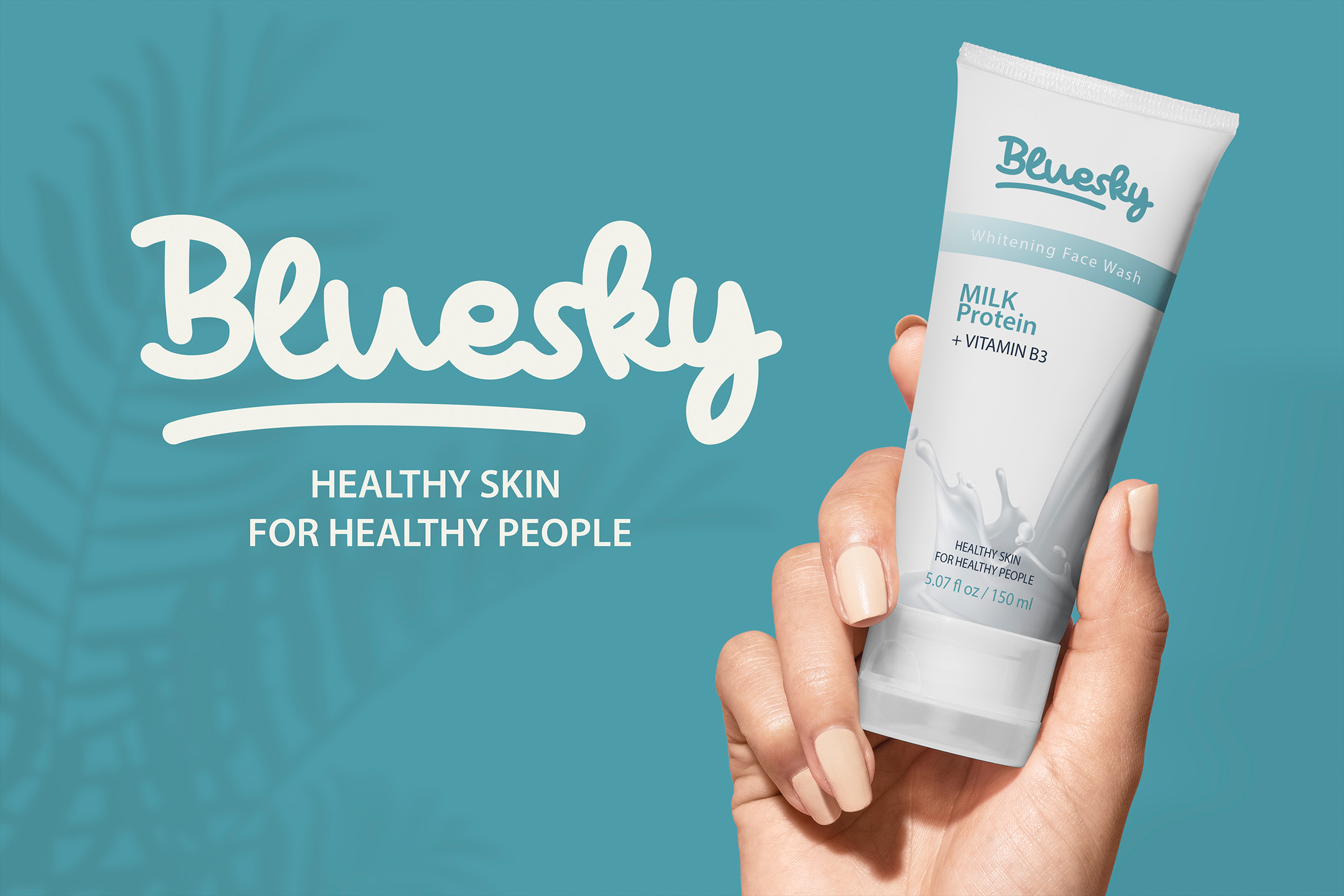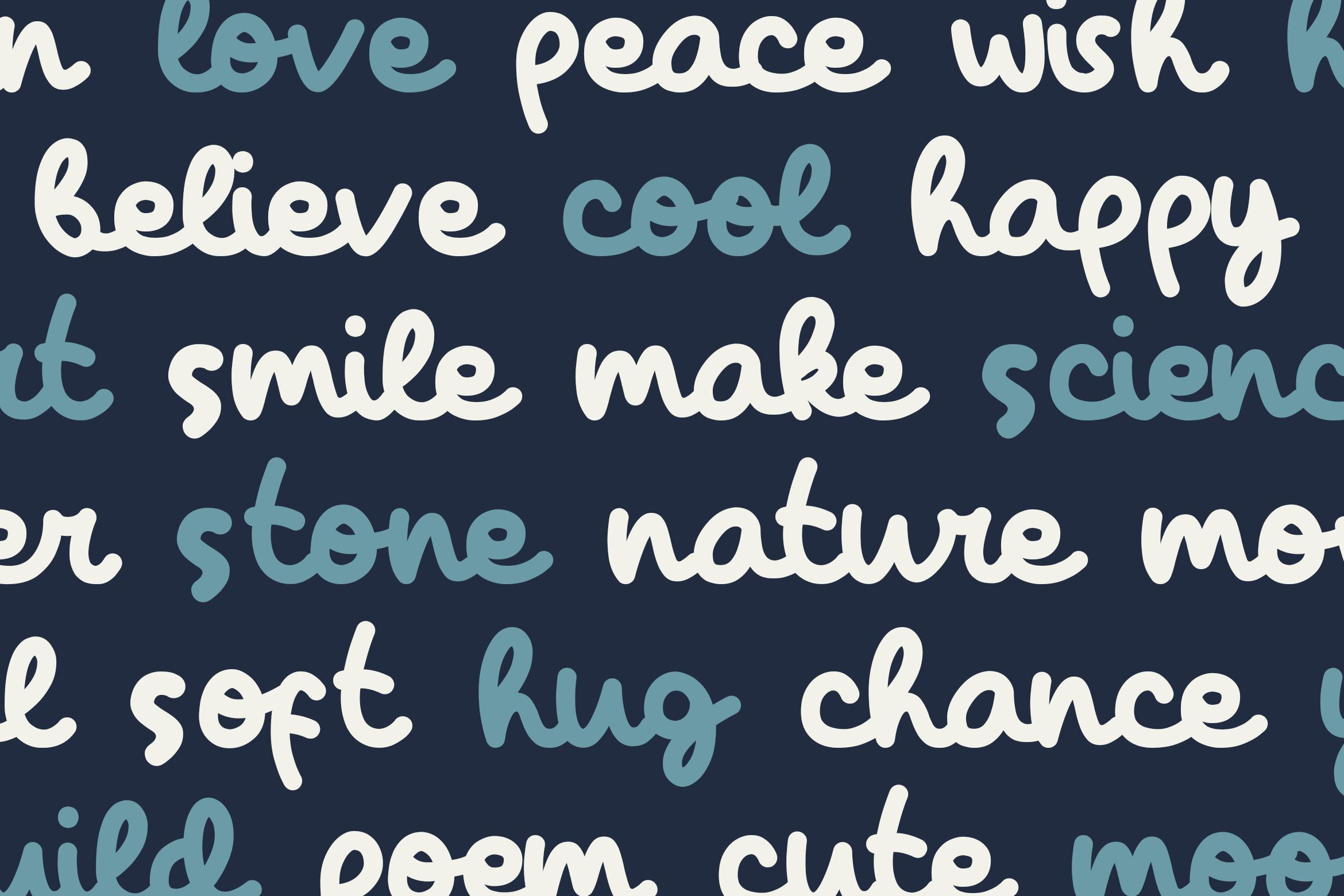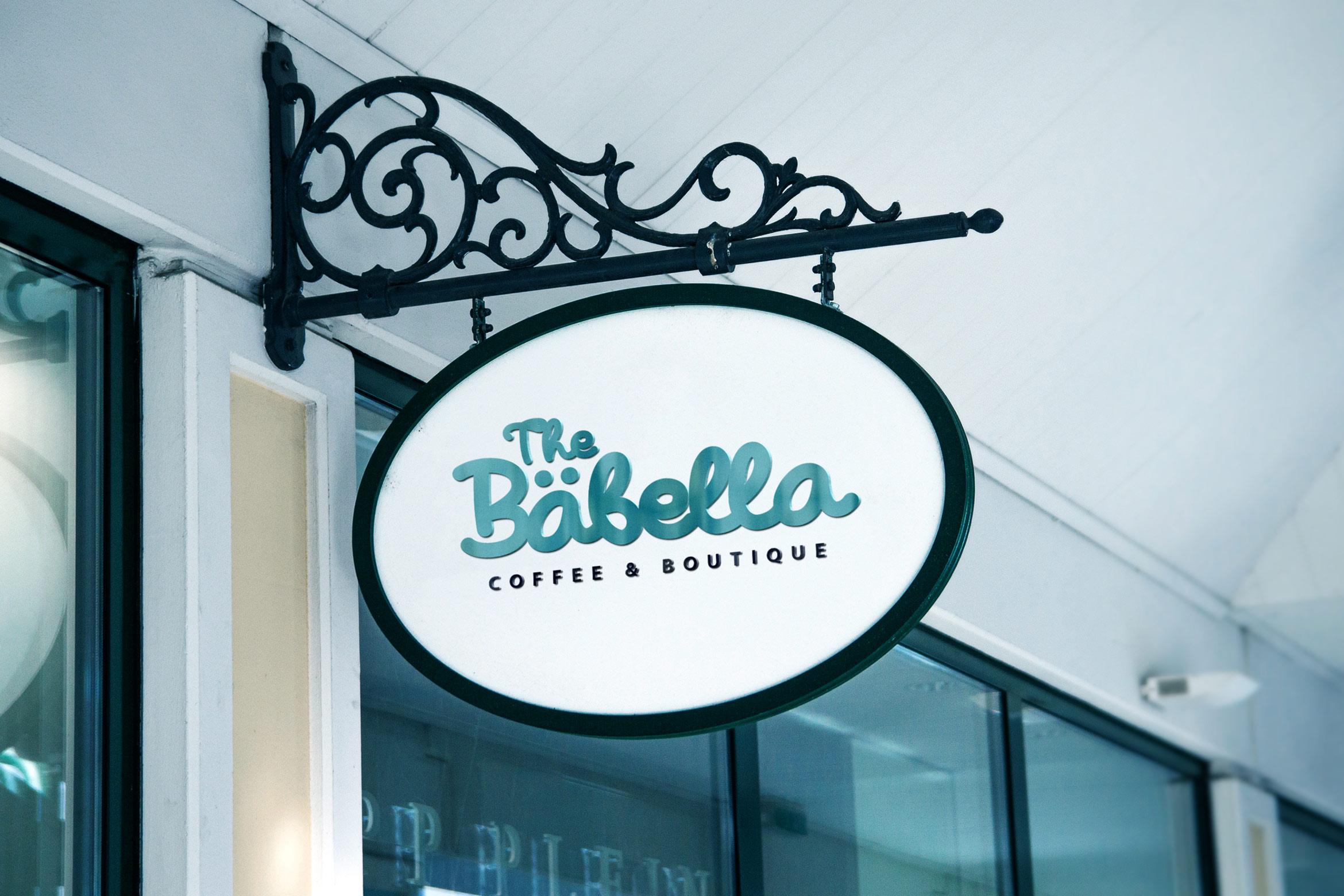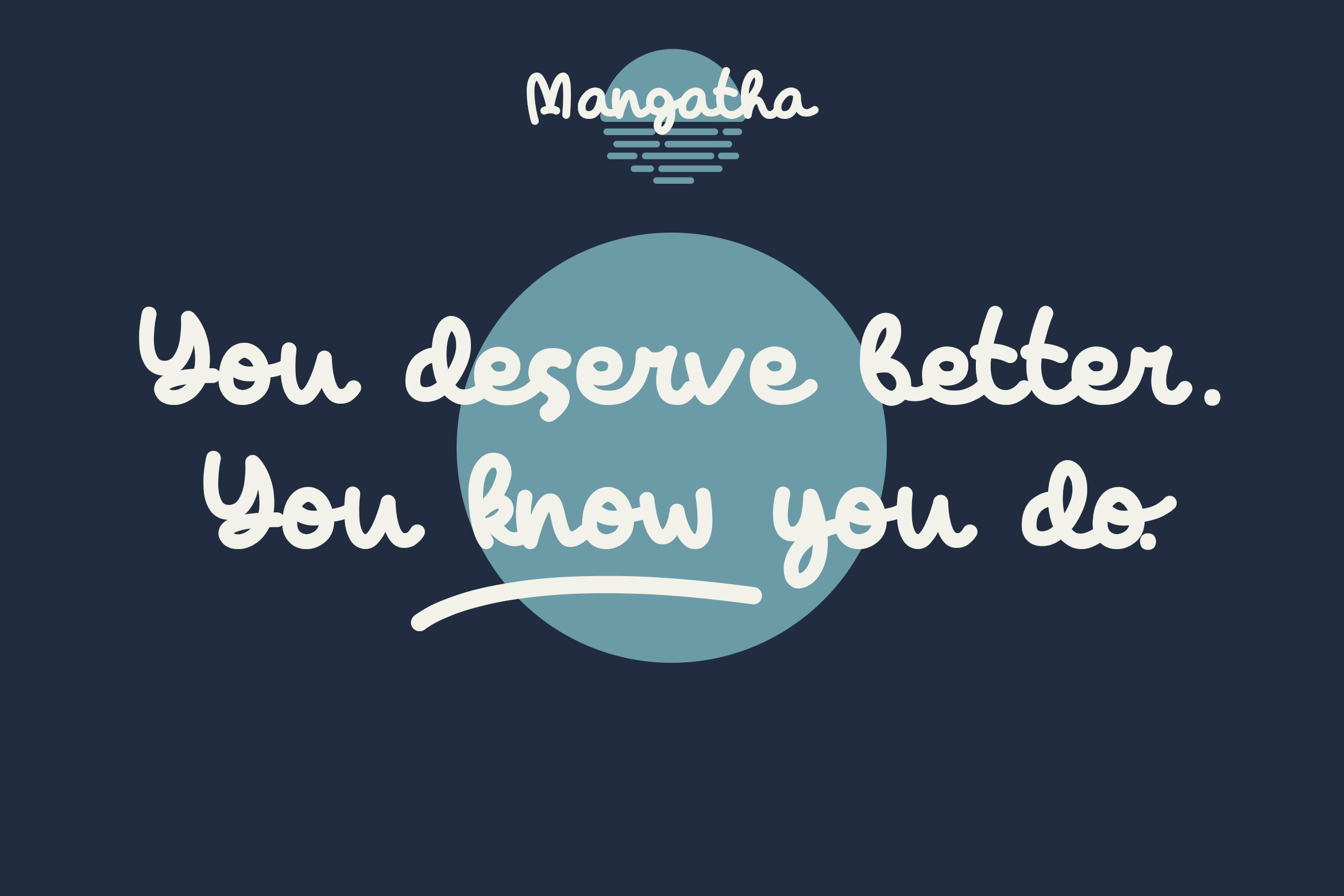
Mangatha Font is handwritten script font. It has casual, classy, fun, and cute. It’s a great font for fashion, apparel projects, signature, album cover, logo, branding, magazine, social media, & advertisements, but also works great for other projects.